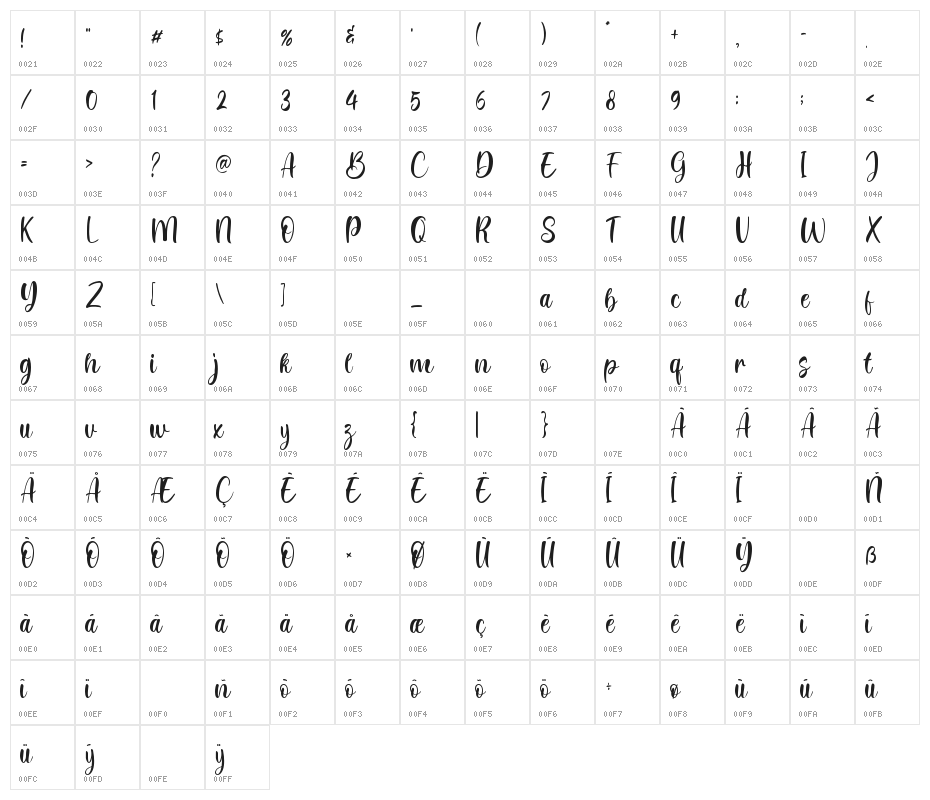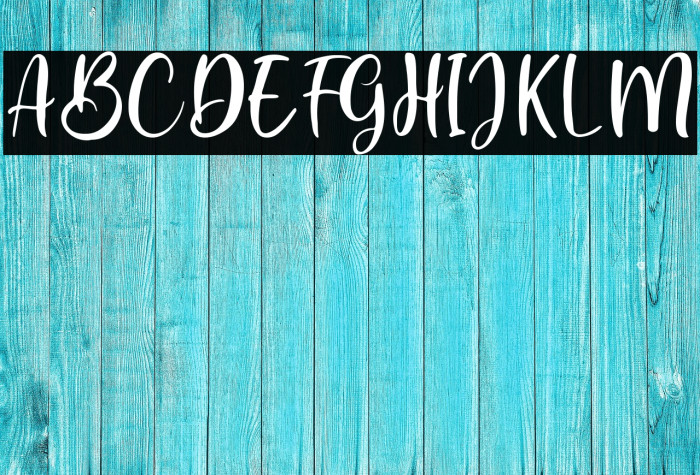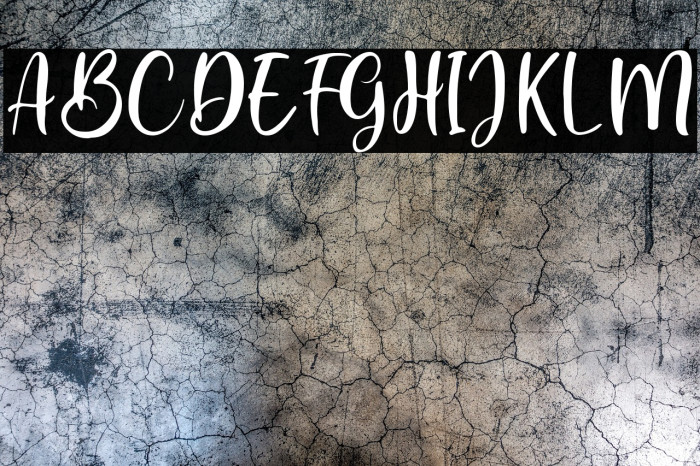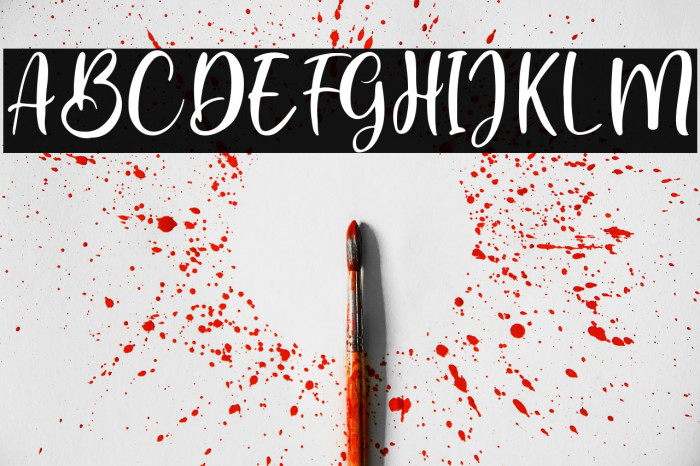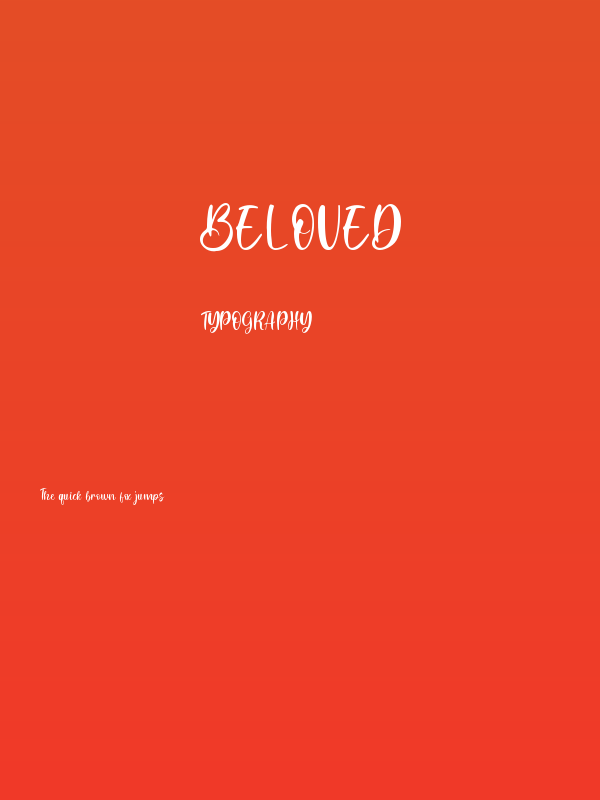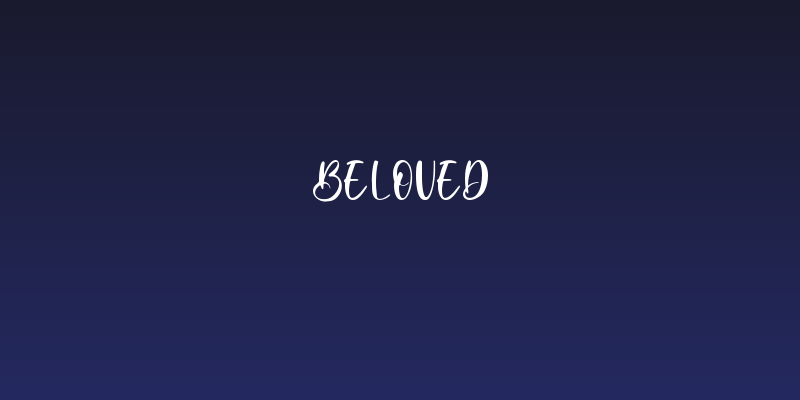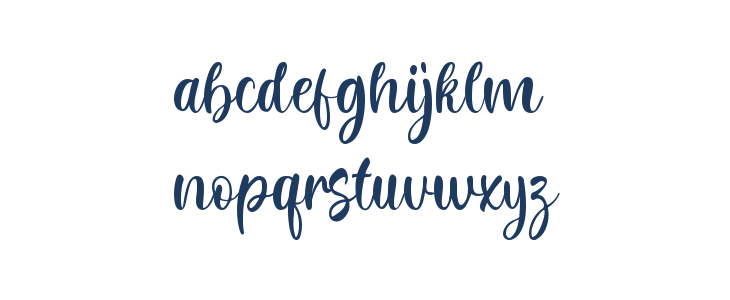
Beloved Font
Beloved Description
This font features a playful and elegant script style with a handwritten feel. The characters are fluid and connected, giving a sense of movement and grace. Uppercase letters are bold and slightly exaggerated, while lowercase letters maintain a consistent flow with rounded edges. The numbers and special characters complement the overall style, maintaining the same fluidity and elegance. This font is perfect for adding a personal touch to any design, with its unique blend of sophistication and charm.